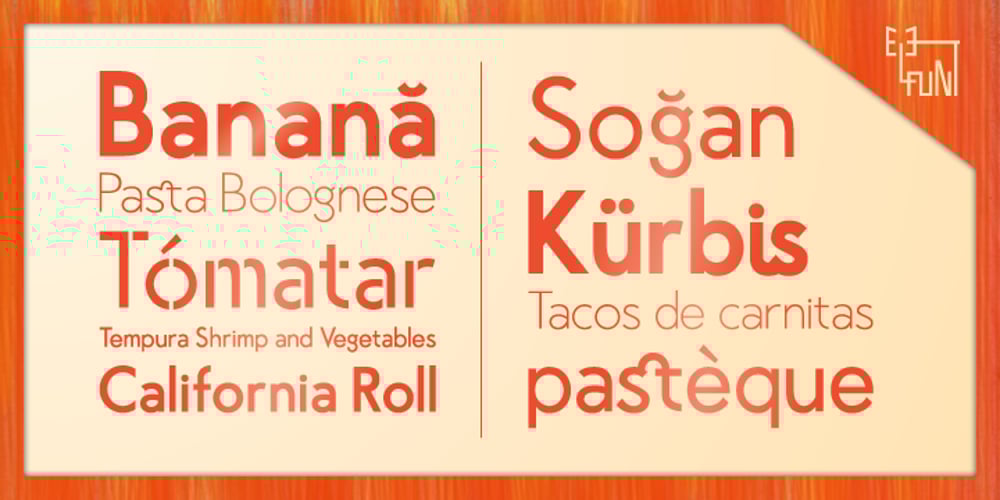
Air Factory Font Family was designed by published by Khaito Gengo. Air Factory contains 6 styles and family package options. Air Factory was originally designed for a merchandise company, and ordered to design iconic but plain forms. Air Factory is a very simple and modern sans-serif font inspired by early 1900’s typefaces, like Futura, and consisting of 5 weights and stencil type(free). This contemporary typeface would be good used for restaurant, retail, book, poster etc. Air Factory also features various ligatures, stylistic alternates, fractions, and languages as well.